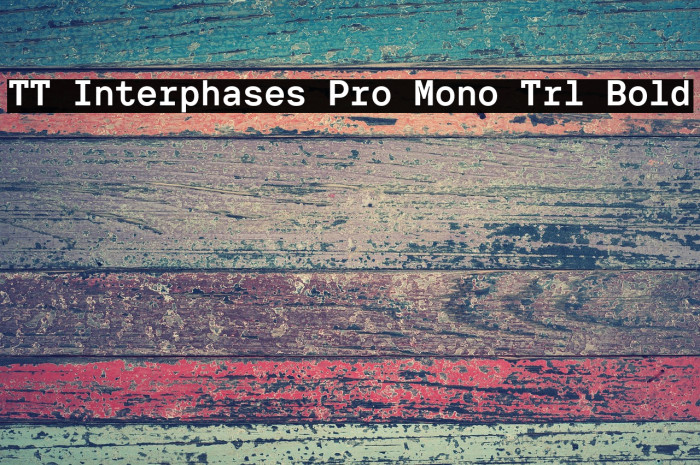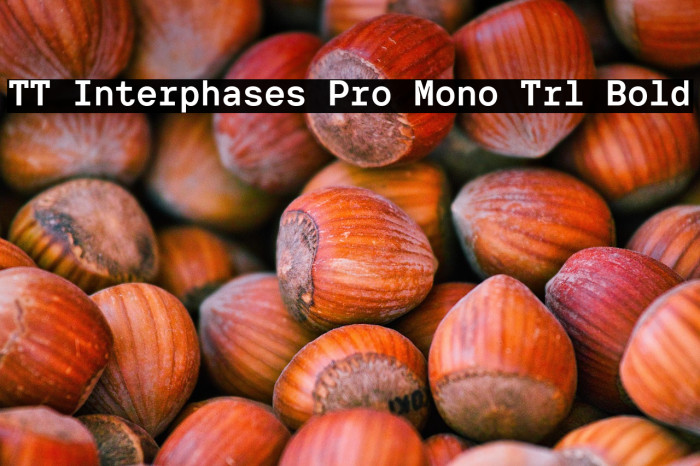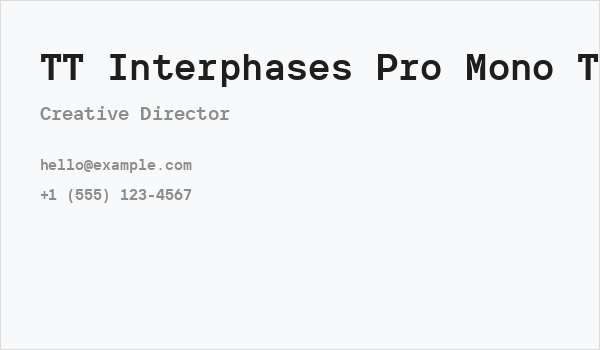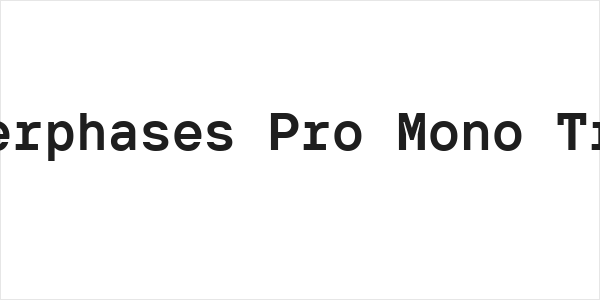
TT Interphases Pro Mono Trl Bold Font
TT Interphases Pro Mono Trl Bold Description
This font features a clean, modern monospaced design with bold, uniform strokes. Each character is distinctly separated, providing excellent readability and a structured appearance. The uppercase and lowercase letters maintain a consistent height, which is typical of monospaced fonts, ensuring that each character occupies the same horizontal space. The numerals are clear and easy to distinguish, making them ideal for data presentation. Special characters are well-defined, enhancing the font's versatility for various applications. The overall style is minimalistic yet impactful, suitable for both digital and print media.
| Use Case | Coding, Technical documentation, Data tables |
| Proposed Projects | Ideal for coding, technical documentation, data tables, and any project requiring precise alignment. |